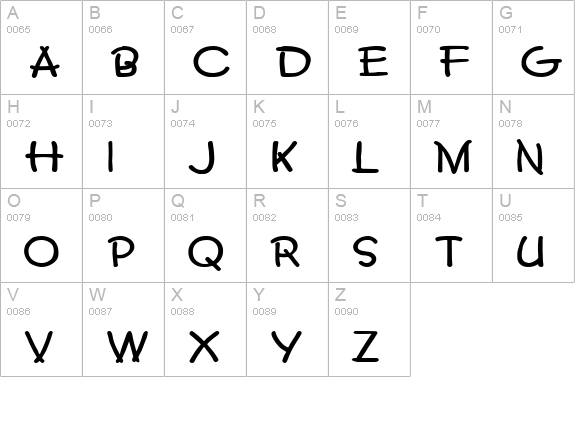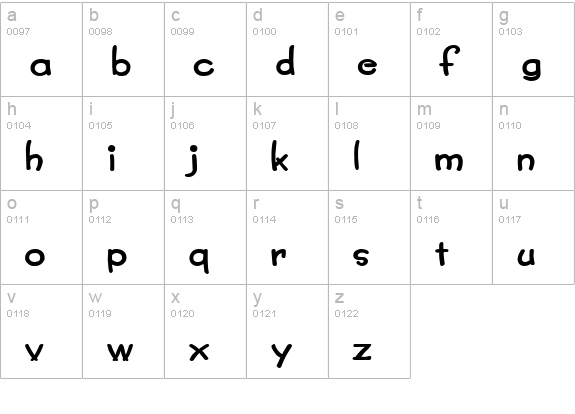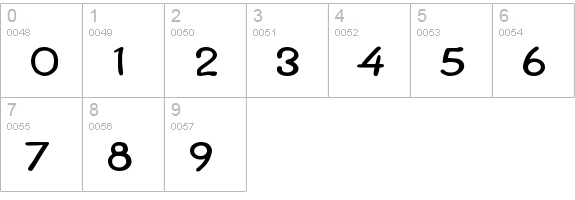
CrayonExtended Bold Font Details
CrayonExtended Bold is a strong, high-contrast variant in the CrayonExtended typeface family \xE2\x80\x94 well suited to headlines, attention-grabbing titles, and strong calls-to-action.
CrayonExtended Bold font is a playful and vibrant typeface that brings a fun and artistic touch to any design project. With its bold and expressive strokes, this font exudes creativity and originality. Perfect for adding a touch of whimsy to posters, invitations, and more, CrayonExtended Bold is sure to make your text stand out. And the best part? CrayonExtended Bold font is completely free to download at FontsMarket.com. So go ahead and unleash your creativity with this delightful and eye-catching typeface today!